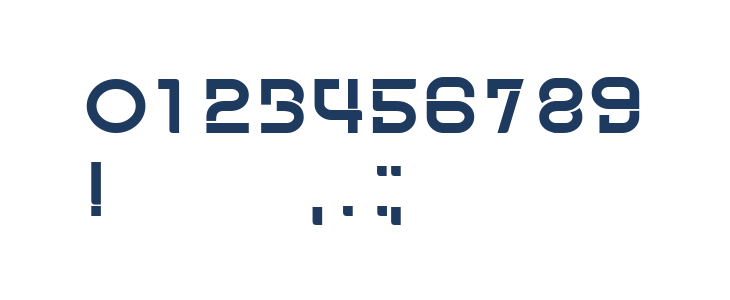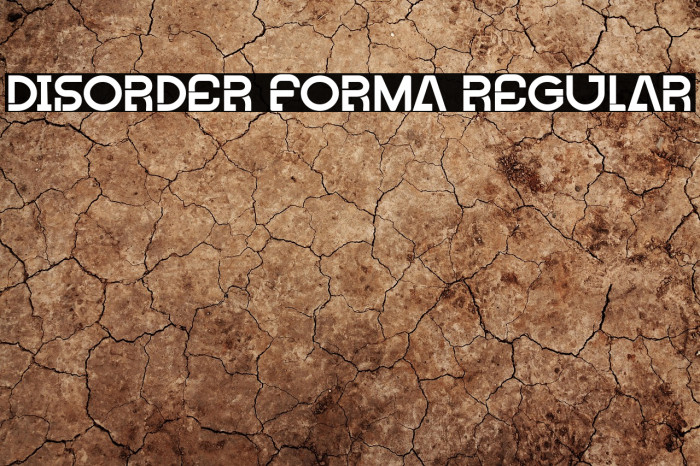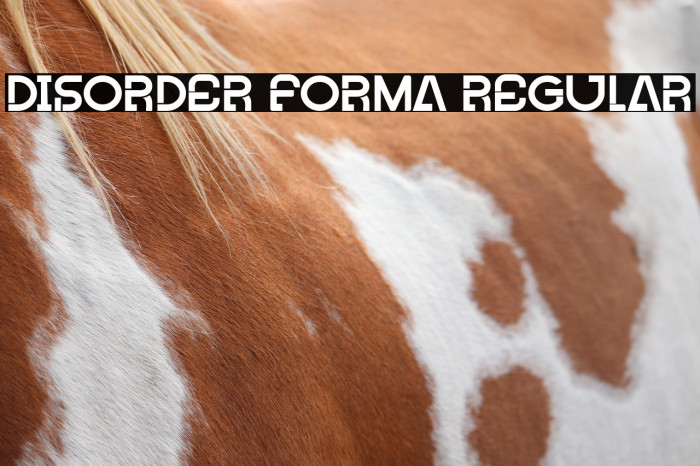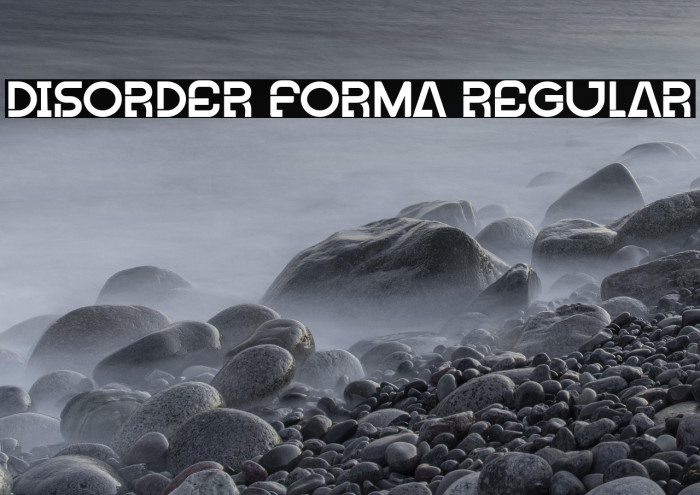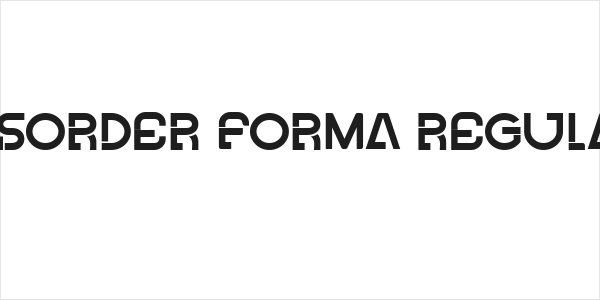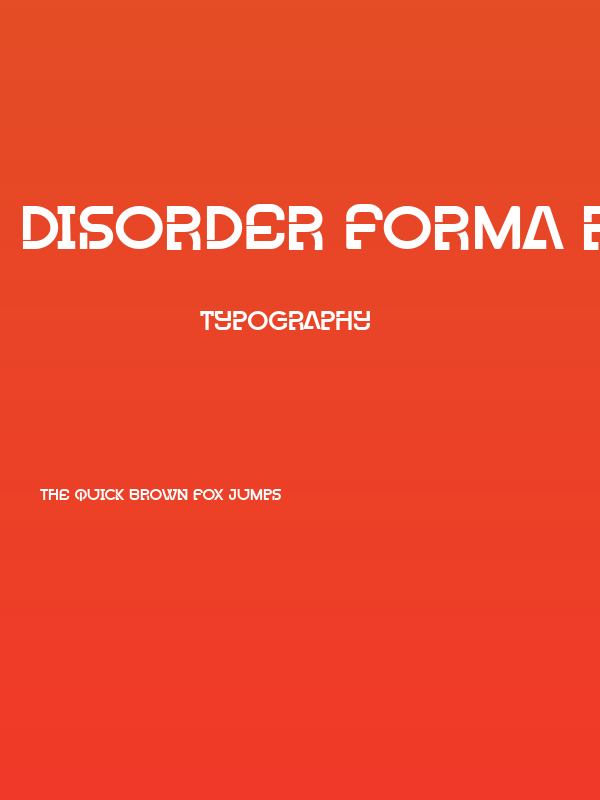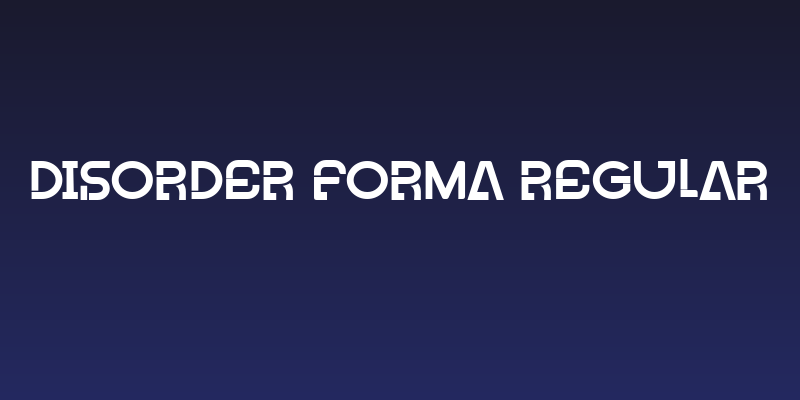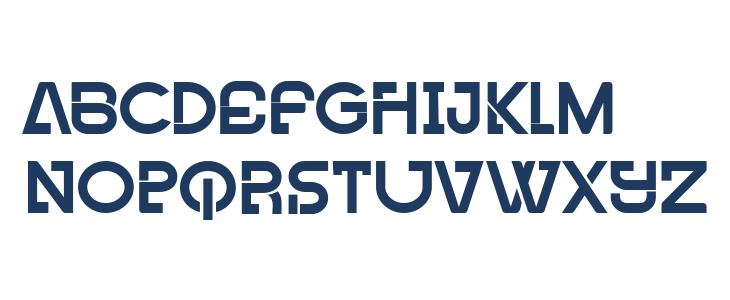
Disorder Forma Regular Font
Disorder Forma Regular Description
This font features a bold and futuristic design with geometric elements and a strong visual impact. The characters are constructed with a mix of solid and cut-out sections, creating a sense of movement and modernity. The uppercase letters are particularly striking, with unique shapes that make each character distinct yet cohesive within the overall typeface. The numbers and special characters maintain this aesthetic, ensuring consistency across all glyphs. This font's style is ideal for projects that require a contemporary and edgy look, making it suitable for technology-related branding, modern art displays, or innovative product packaging.
| Proposed Projects | Ideal for technology branding, modern art displays, innovative product packaging, and futuristic event posters. |